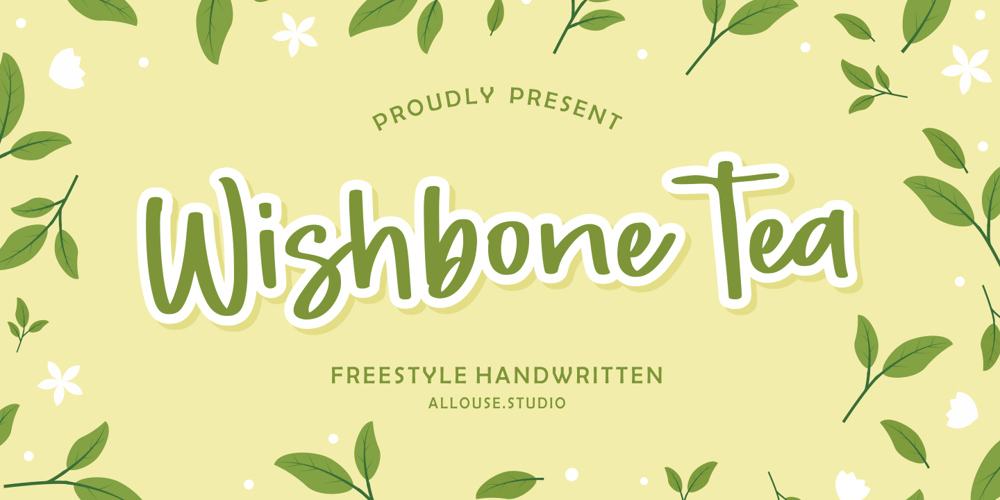
Wishbone Tea Font Family was designed by Fachrizal Yusuf and published by Allouse Studio. Wishbone Tea contains 1 styles and family package options. Wishbone Tea a Freestyle Handwritten Font.Wishbone Tea is perfect for any titles, logo, product packaging, branding project, megazine, social media, wedding, or just used to express words above the background.Wishbone Tea also come with Multi-Lingual Support.Enjoy the font, feel free to comment or feedback, send me PM or email. Thank You!